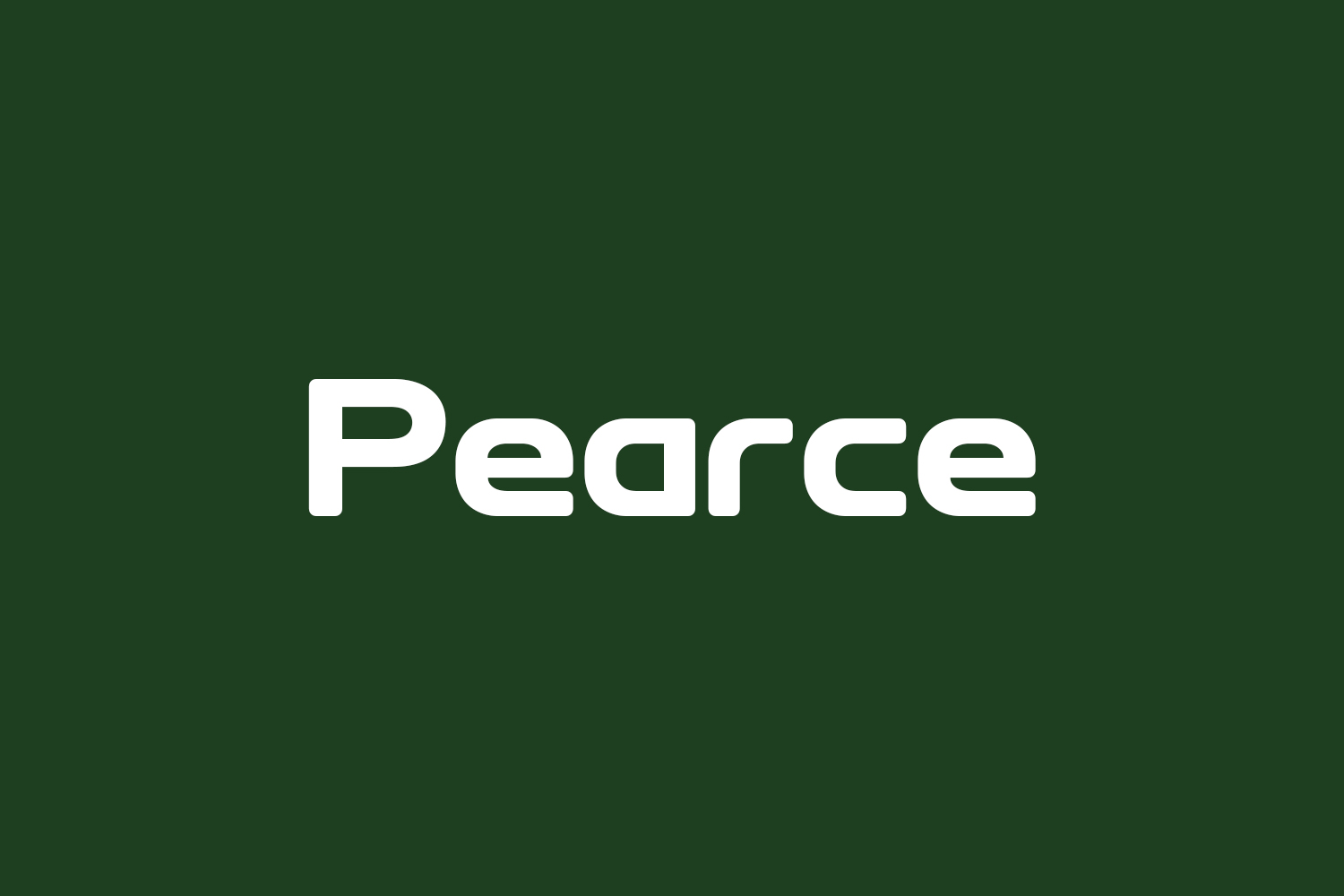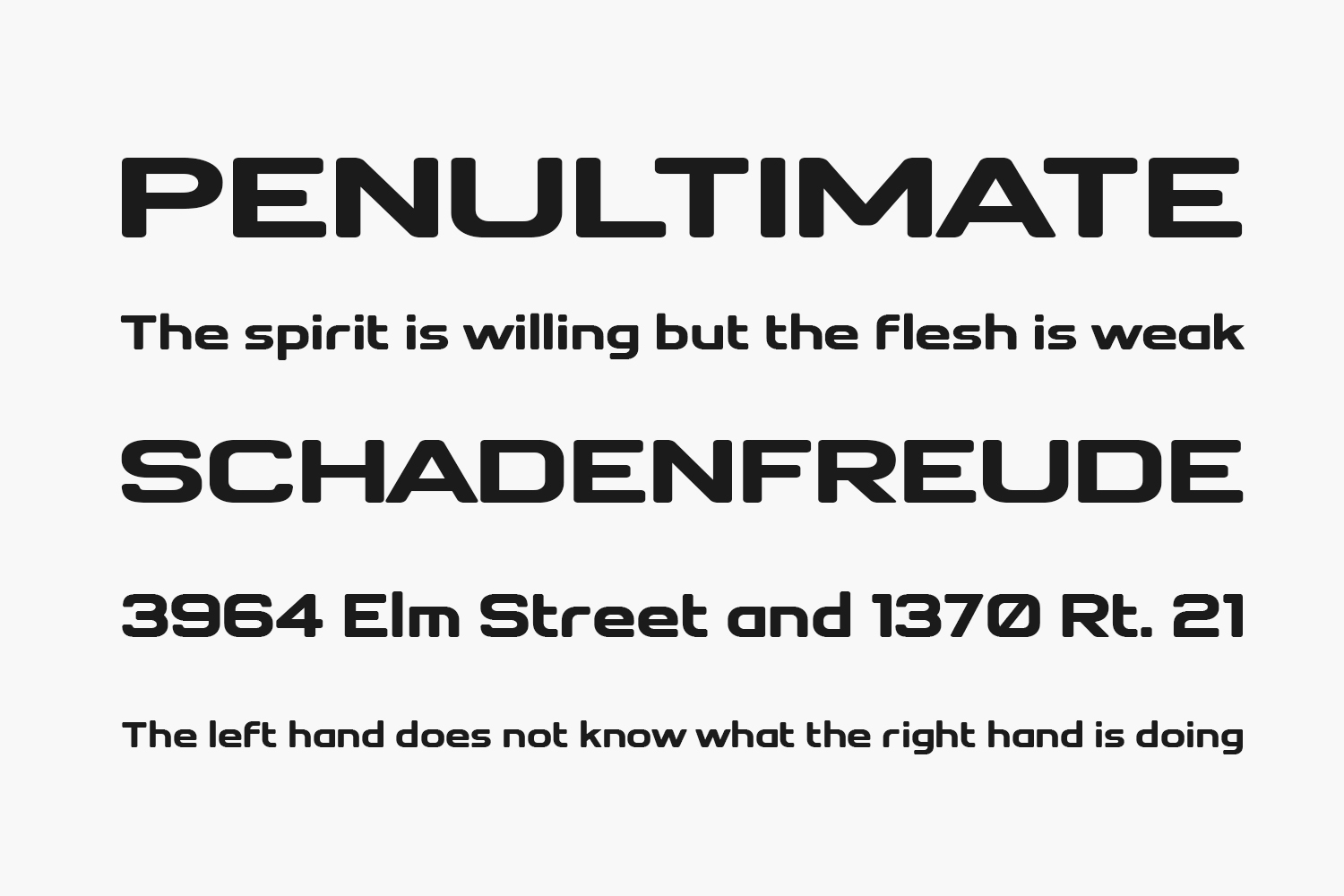
Pearce Free Font – Clean Sans Serif for Modern Typography
Pearce is a minimalist and modern sans-serif font designed by Faqih Fawaji from Drizy Studio to bring clarity and elegance to your creative projects. With its clean lines, open letterforms, and balanced proportions, this free typeface works perfectly for crafting sleek logos, editorial headers, digital interfaces, magazine layouts, and more. Available in TTF format — ideal for designers seeking a neutral, readable font that enhances legibility without overpowering your layout.
Why Choose Pearce?
- Clean & Minimalist Style: Combines simplicity with functionality for a modern, professional appearance.
- Ideal for UI Design: Perfect for websites, apps, or landing pages where readability is key.
Where to Use Pearce?
Pearce shines across a variety of design applications:
- Logos & Brand Identity: Adds sophistication to brand kits for startups, lifestyle blogs, or minimalist studios needing a clean tone.
- Editorial Design: Perfect for blog headers, newspaper titles, or advertising campaigns needing a crisp style.
- Digital Interfaces: Ideal for web typography, app design, or user interface elements where clear communication is essential.
- Poster & Billboard Design: Designed for visibility — makes headlines pop in outdoor advertising.
- Social Media Graphics: Enhances Instagram Stories, TikTok overlays, and YouTube banners with a stylish yet neutral look.
Design Tips with Pearce